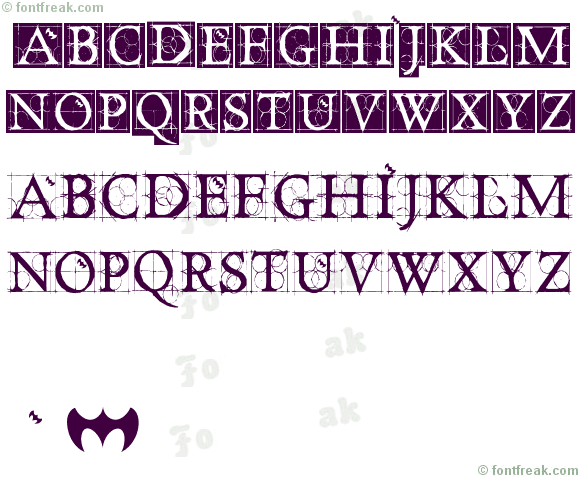
DancingVampyrish
DancingVampyrish is a captivating decorative font created by Manfred Klein, characterized by its unique blend of whimsy and elegance. This font falls into the display category, making it an eye-catching choice for various creative projects. The visual style features an intricate design with a mix of varying stroke weights that create a dynamic and playful appearance. The contrast between thick and thin lines adds depth, while the spacing allows for readability despite its decorative nature. The playful decorative elements, including ornate flourishes and playful curves, enhance its whimsical quality, making it suitable for projects that require a touch of flair.
This font is particularly well-suited for wedding invitations, where its elegant yet fun style can set a joyful tone. It also shines in movie posters, especially for genres like fantasy or romance, as it captures the imagination and draws in viewers. Restaurant menus can benefit from its unique aesthetic, adding character to the dining experience. Additionally, content creators looking to add a distinctive touch to their branding will find DancingVampyrish to be a valuable asset.
The target audience for this font includes graphic designers seeking distinctive typefaces for creative projects, small business owners wanting to enhance their branding, and content creators looking to make a memorable impact.
What sets DancingVampyrish apart is its ability to blend charm and creativity, making it a standout choice for anyone looking to elevate their visual communication. Its freeware license allows for easy access, encouraging experimentation and creativity among users. For those interested in unique typography, the DancingVampyrish font free download is a fantastic option that brings an artistic flair to any design endeavor.